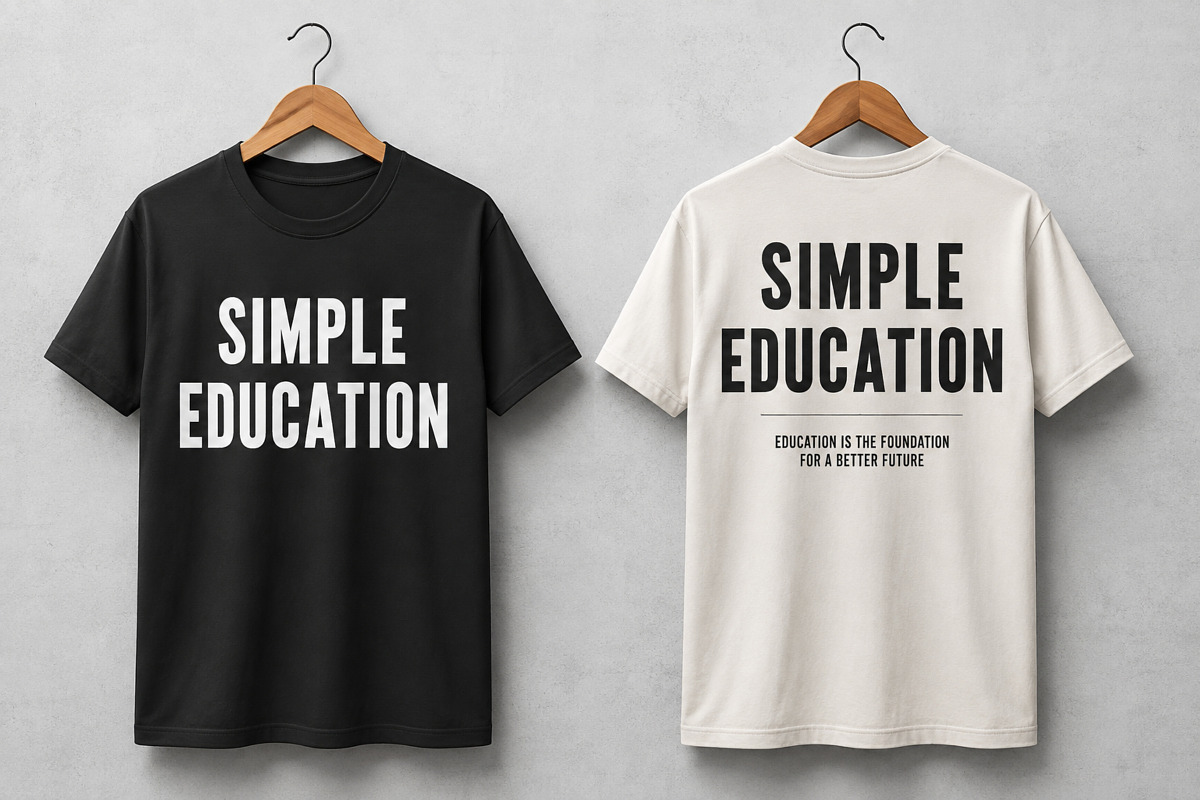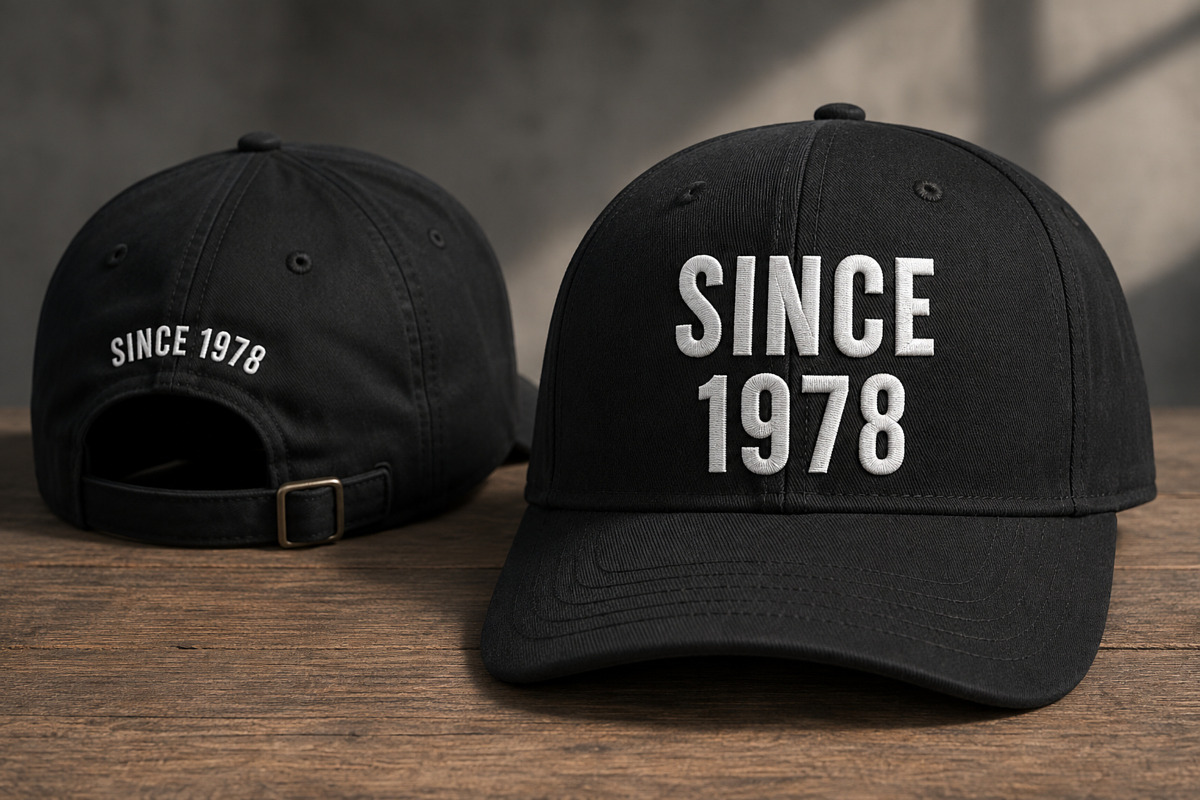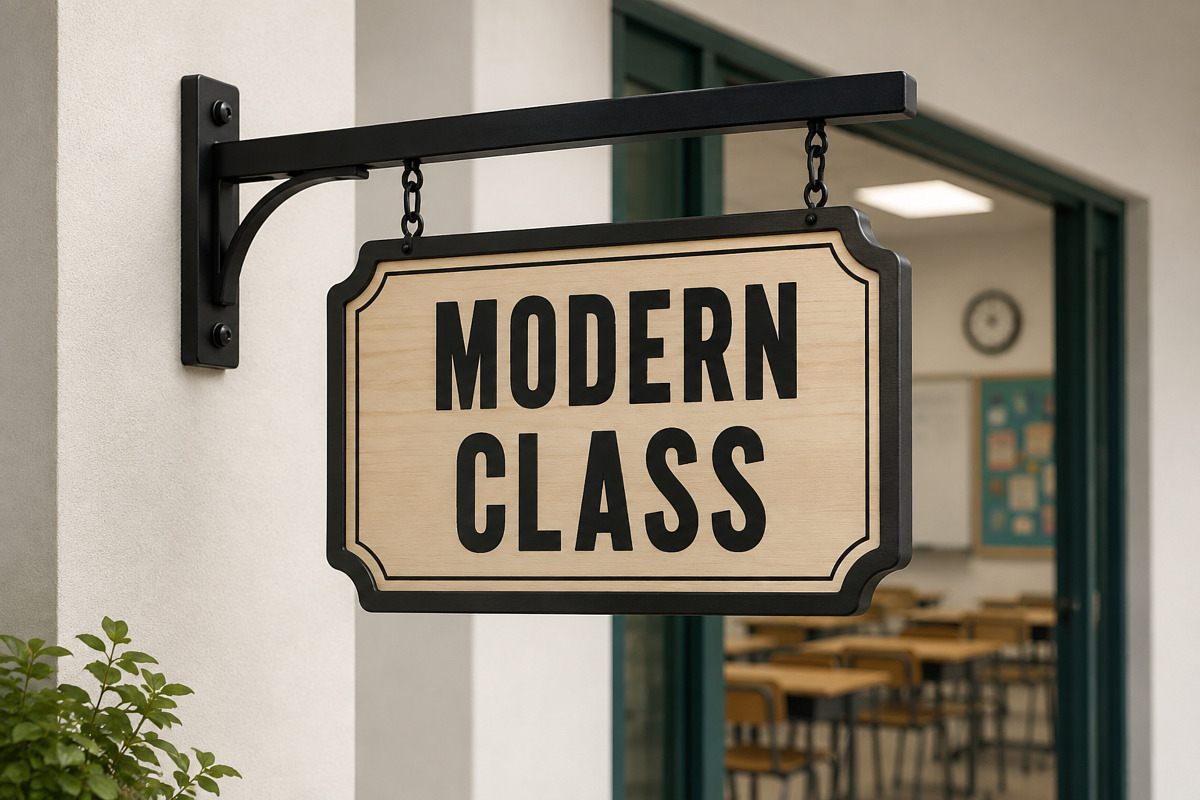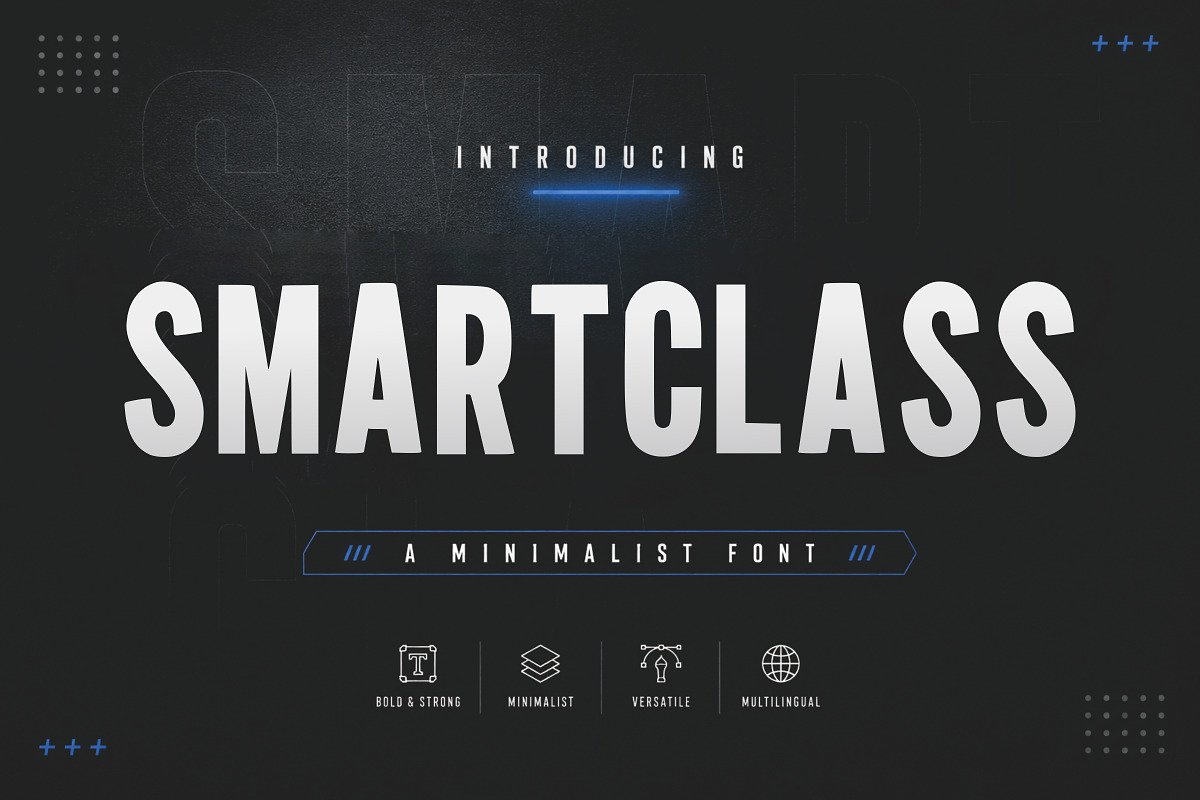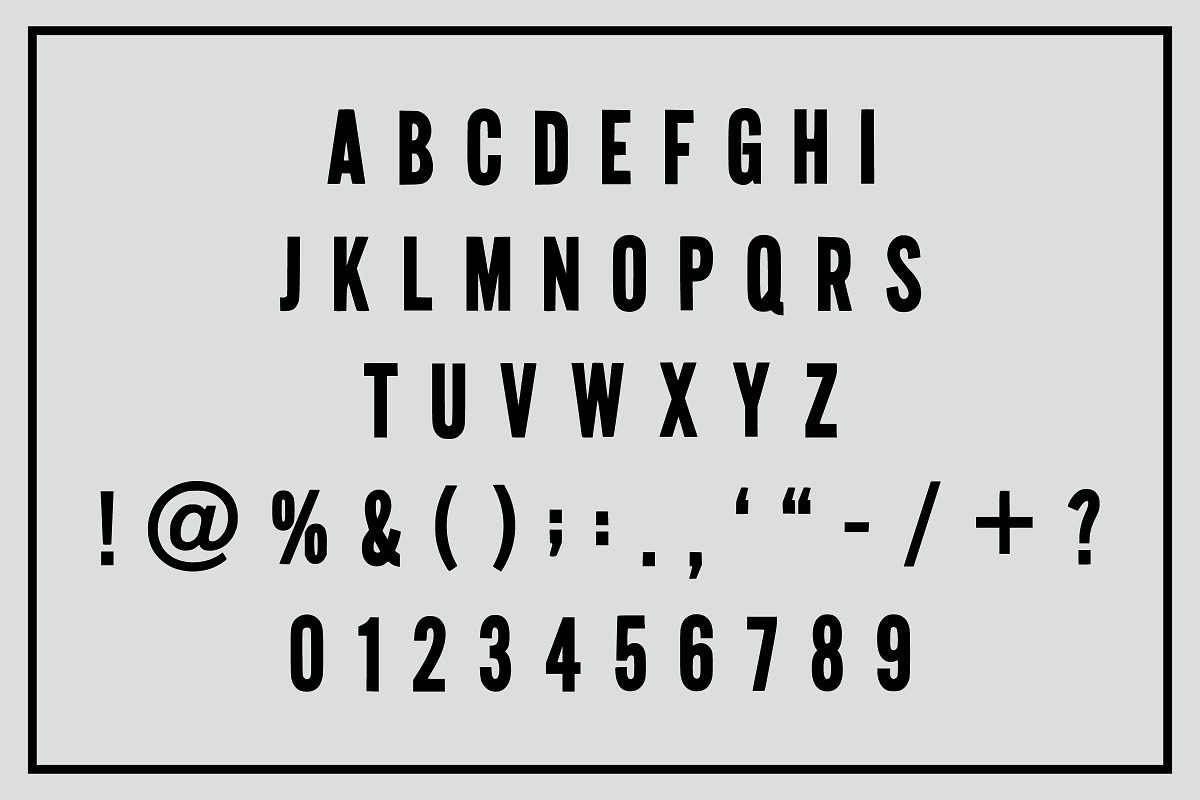
SmartClass - Bold Minimalist
SmartClass is a bold minimalist sans serif font designed to deliver a clean, modern, and powerful visual impact. Featuring strong geometric letterforms, balanced proportions, and excellent readability, this font is perfect for branding, logos, posters, headlines, packaging, sports graphics, social media, web design, editorial layouts, and modern marketing materials. SmartClass includes multilingual support and works beautifully across both print and digital projects.
Bold & Strong Character
Minimalist Sans Serif
Clean Modern Design
Uppercase Display Font
Easy to Read
Perfect for Branding
Ideal for Headlines & Posters
Uppercase Characters
Multilingual Characters
Branding
Sports Graphics
Esports
Posters
Headlines
Packaging
Advertising
Social Media
YouTube Thumbnails
Website Headers
Editorial Design
Apparel Design
Signage